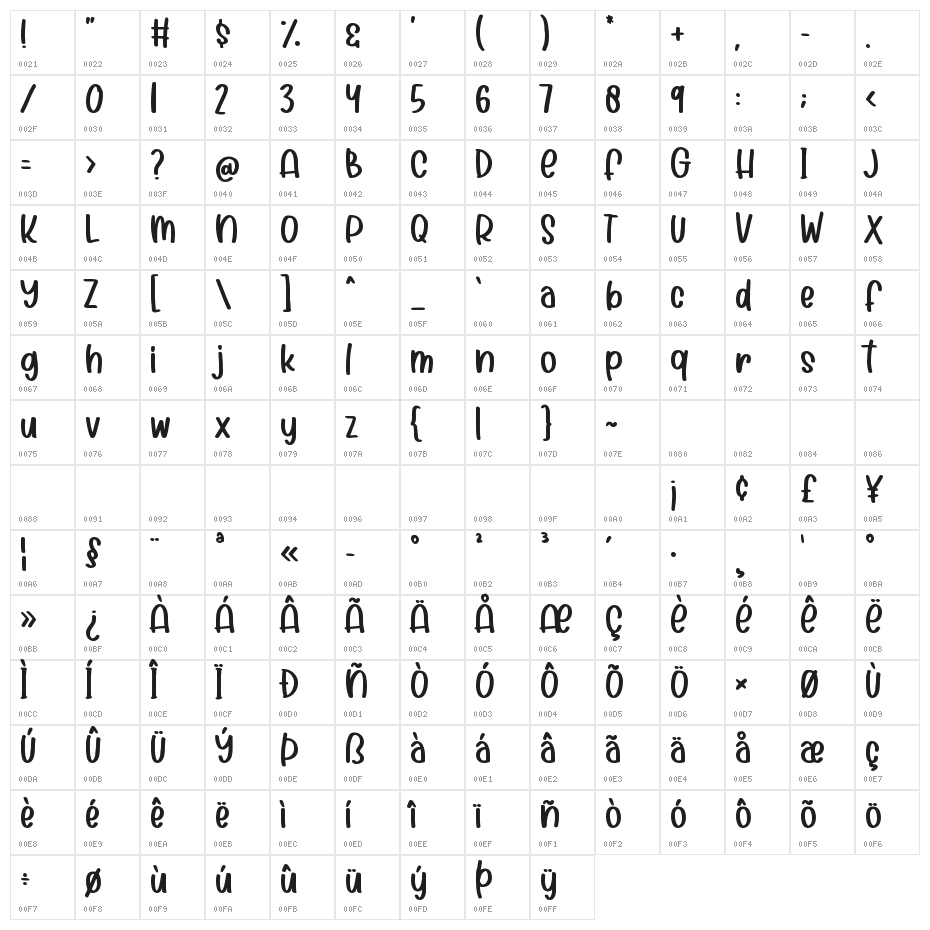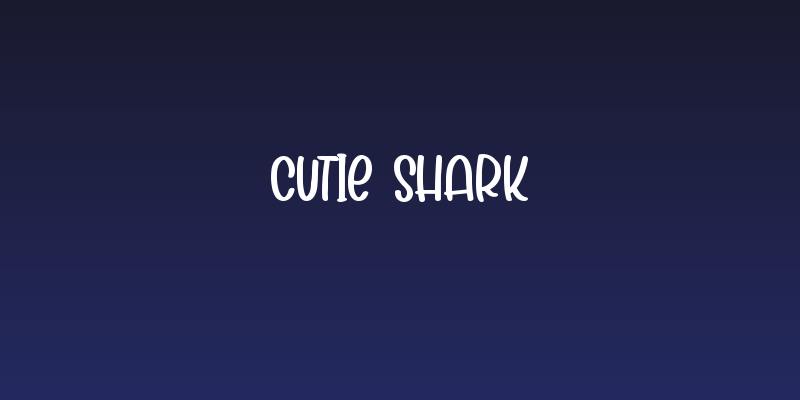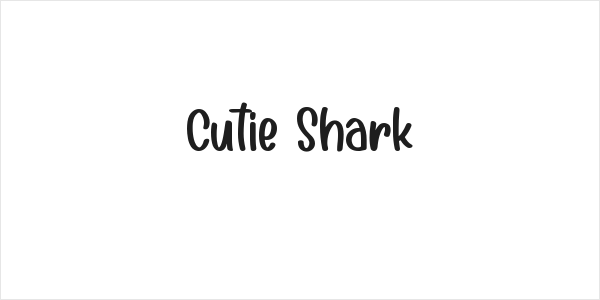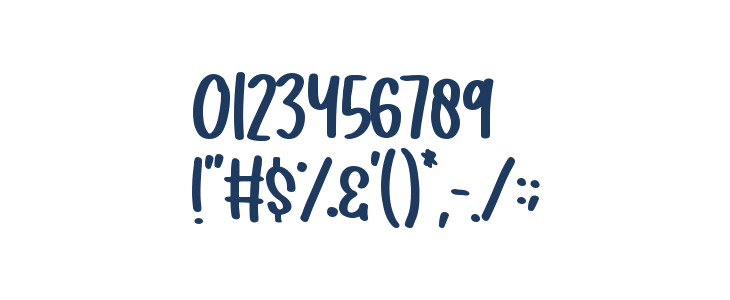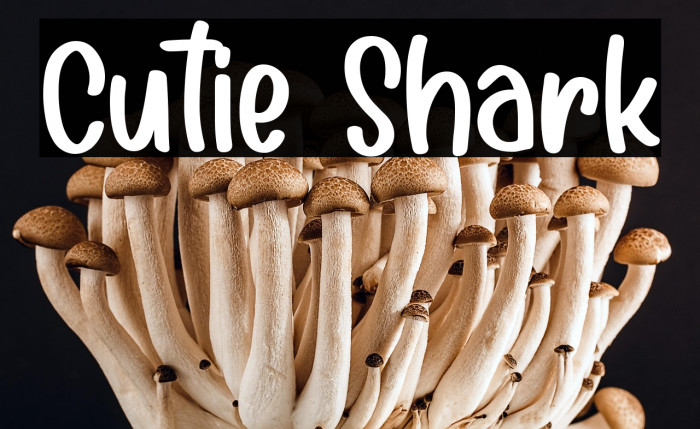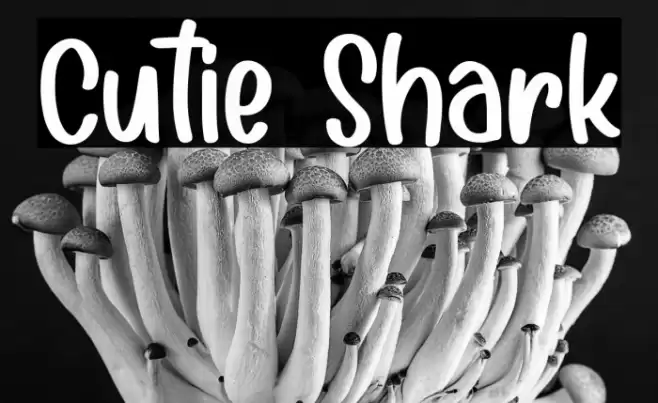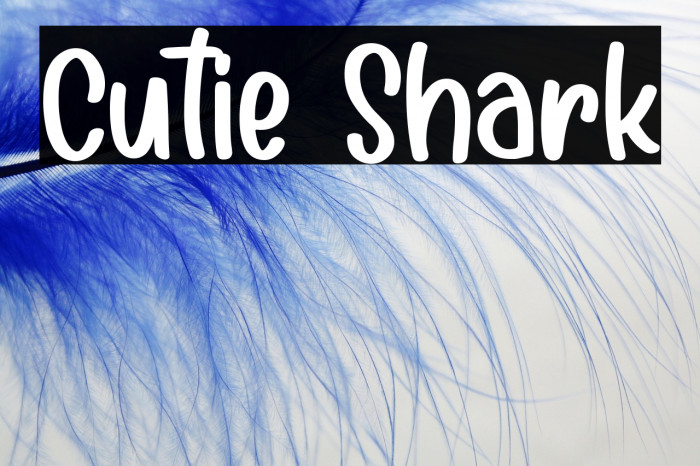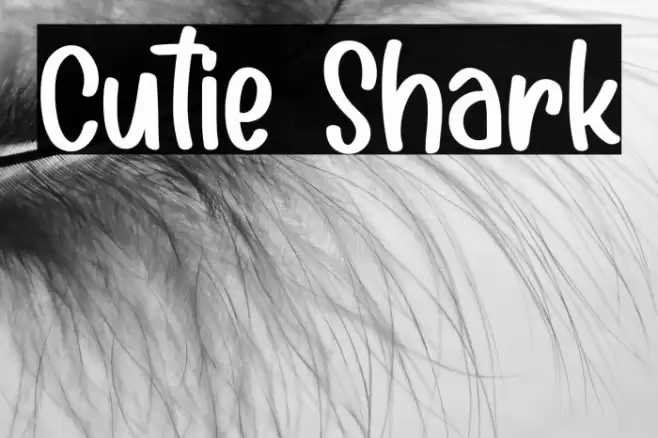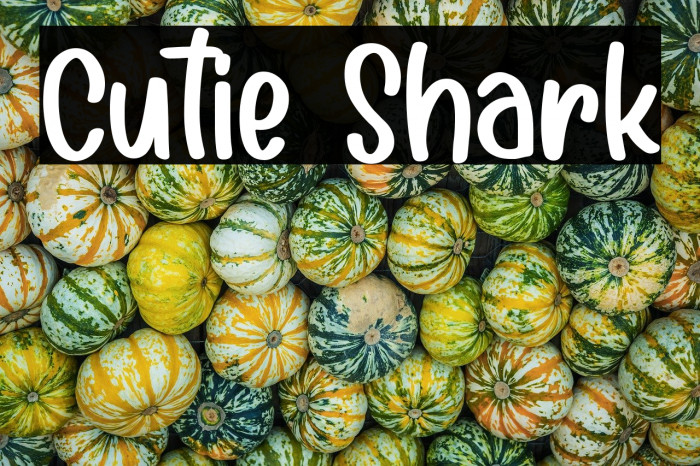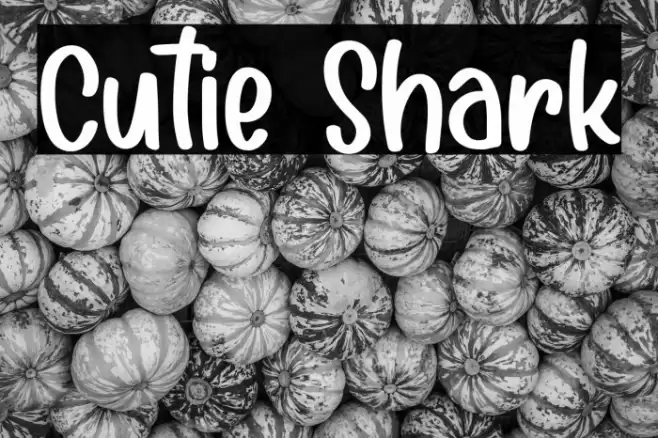
Cutie Shark Font
This playful and whimsical font features a handwritten style with smooth, rounded edges and a casual, friendly appearance. The letters are bold and slightly irregular, giving them a lively and dynamic feel. The uppercase and lowercase letters maintain a consistent flow, while the numbers and special characters complement the overall aesthetic. The font's informal style makes it ideal for projects that require a personal touch or a fun, approachable vibe.
| Use Case | Headlines, Logos, Social media graphics |
| Proposed Projects | Great for children's books, greeting cards, playful branding, and social media graphics. |